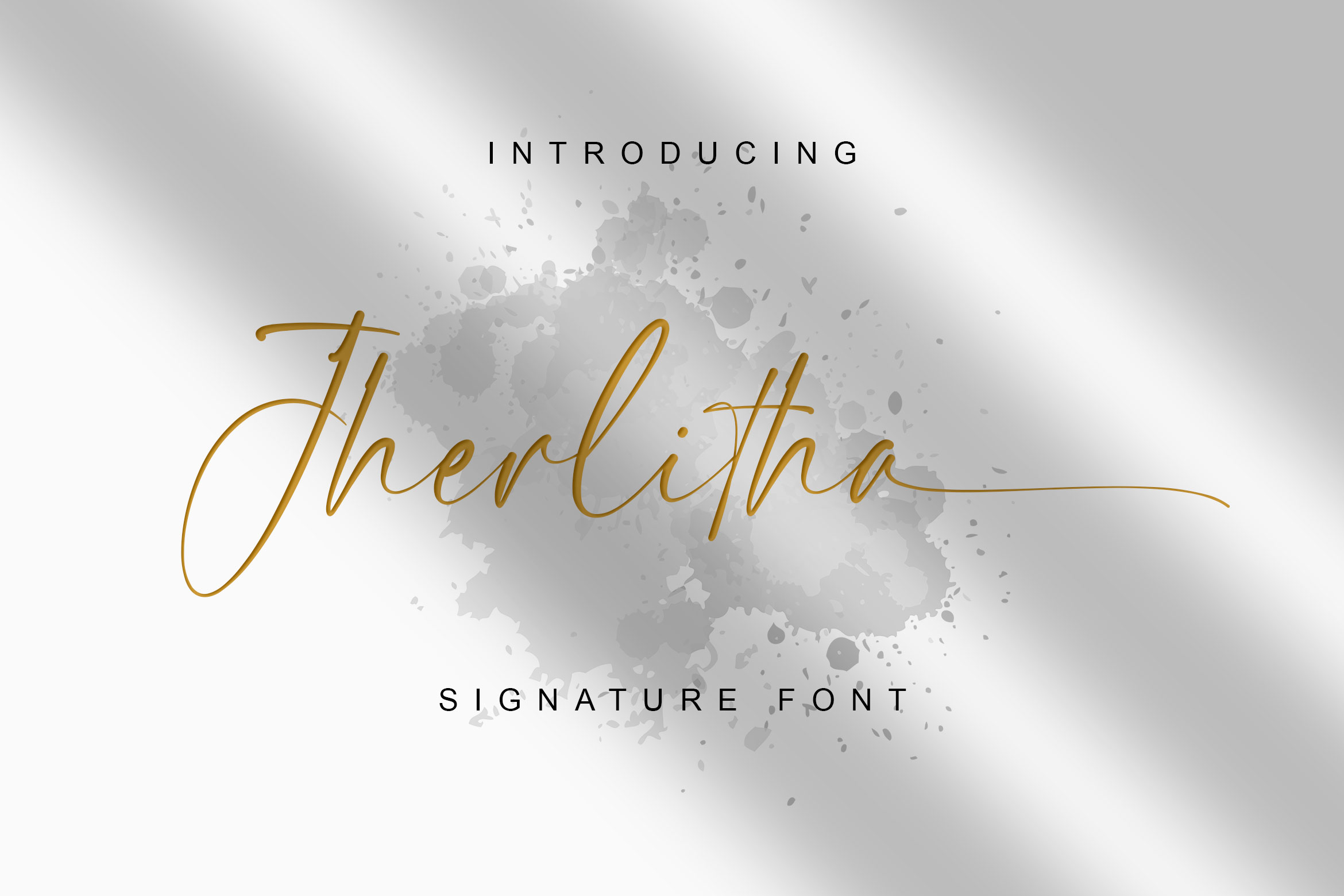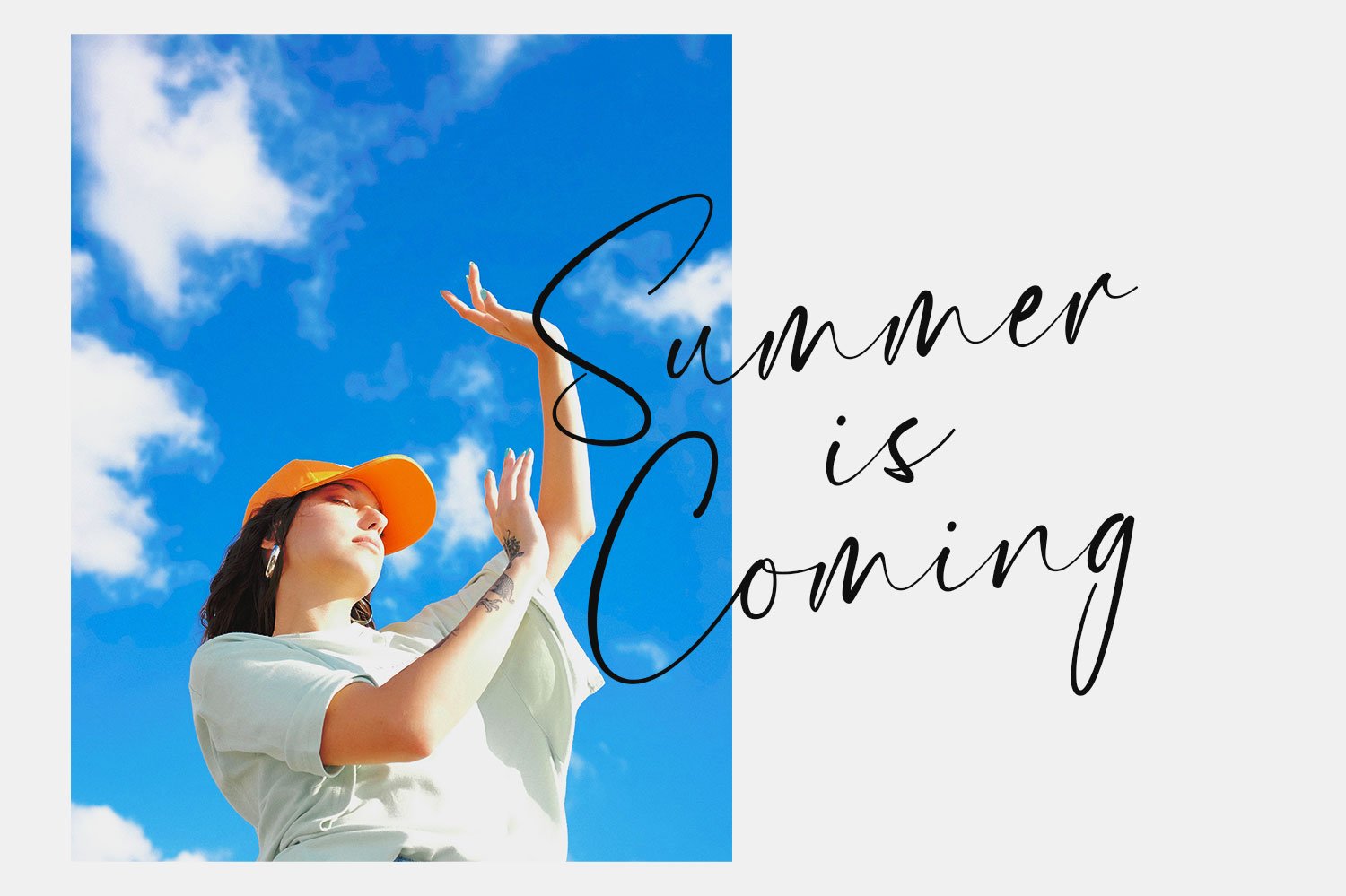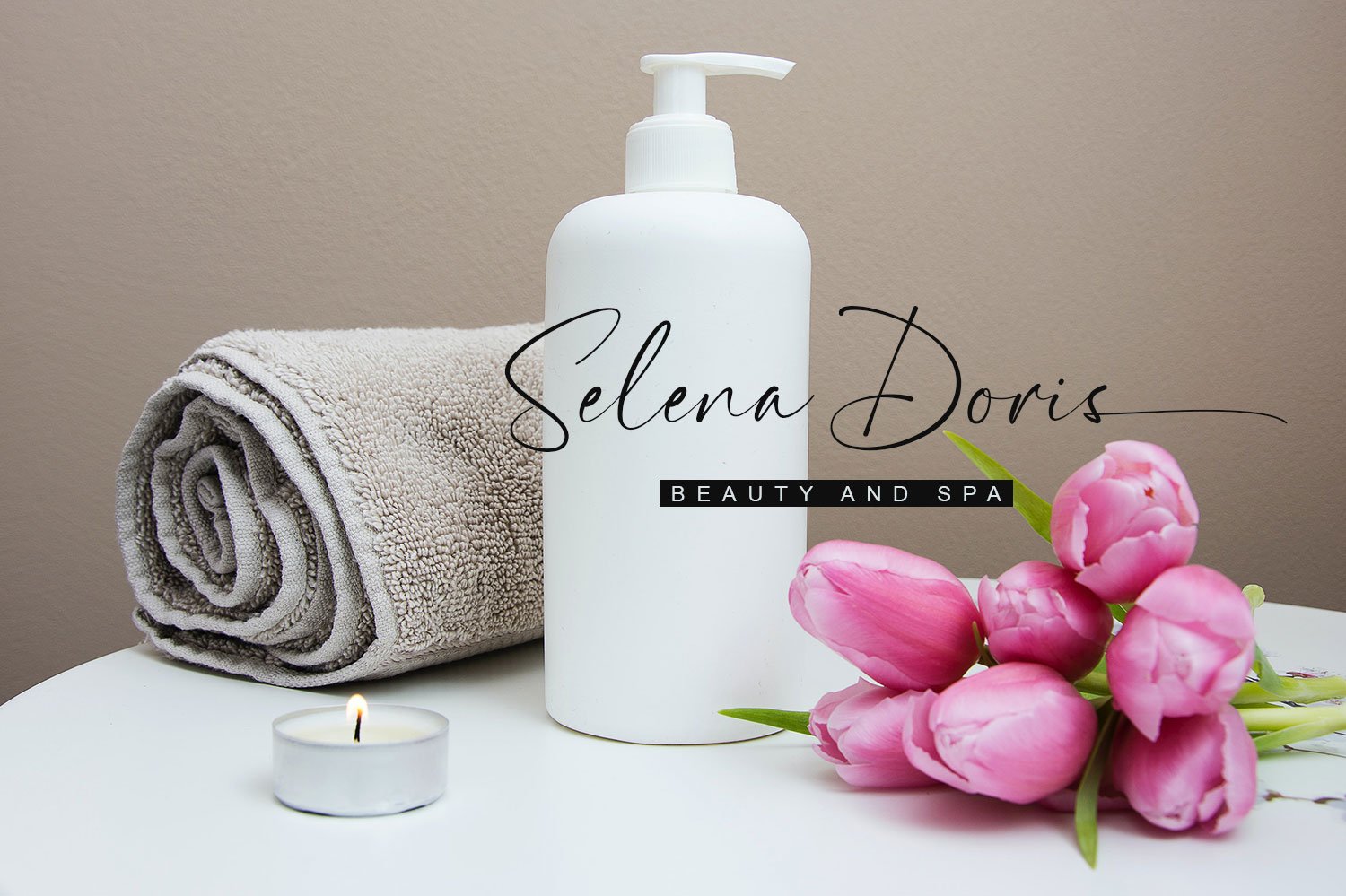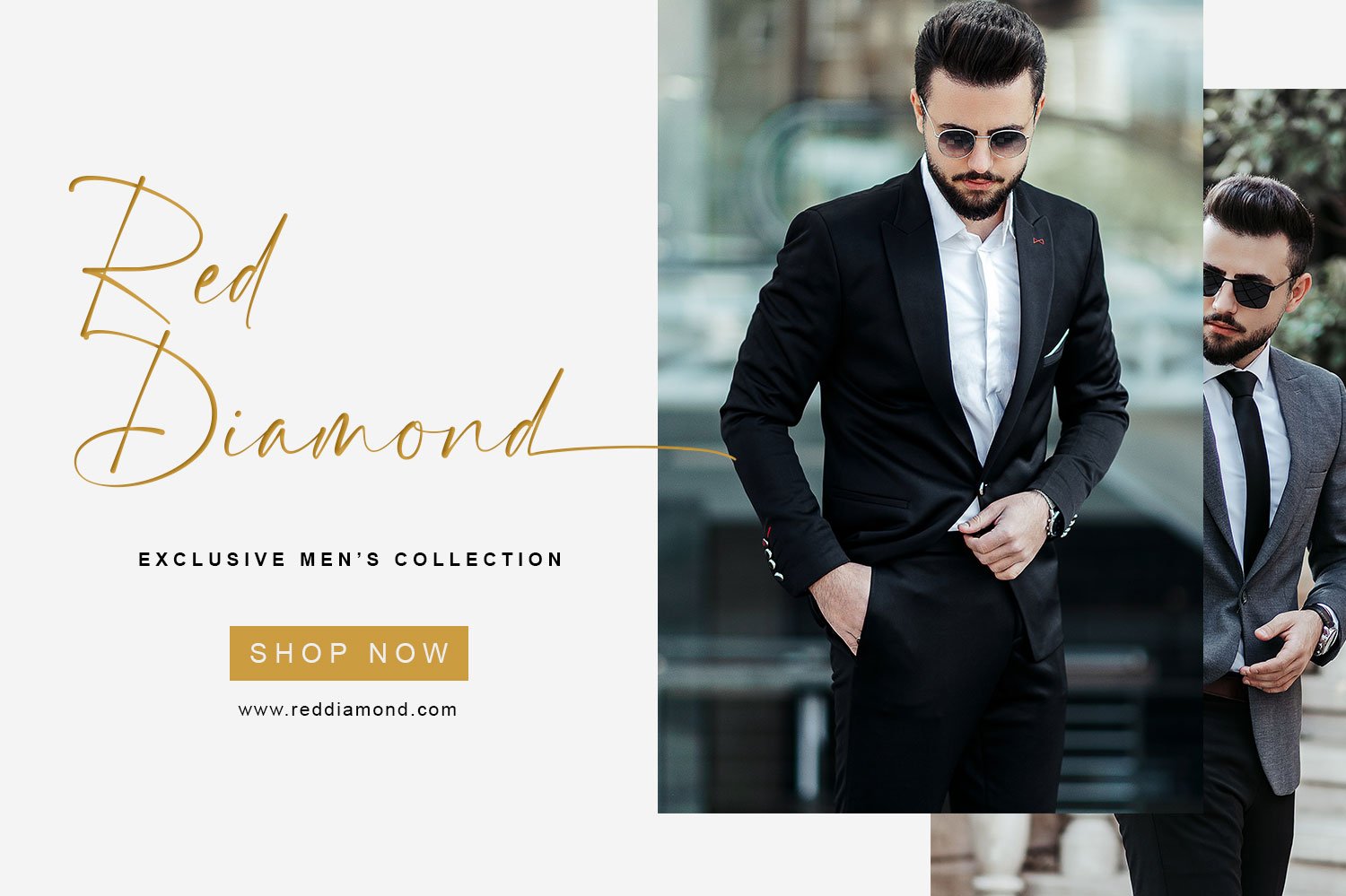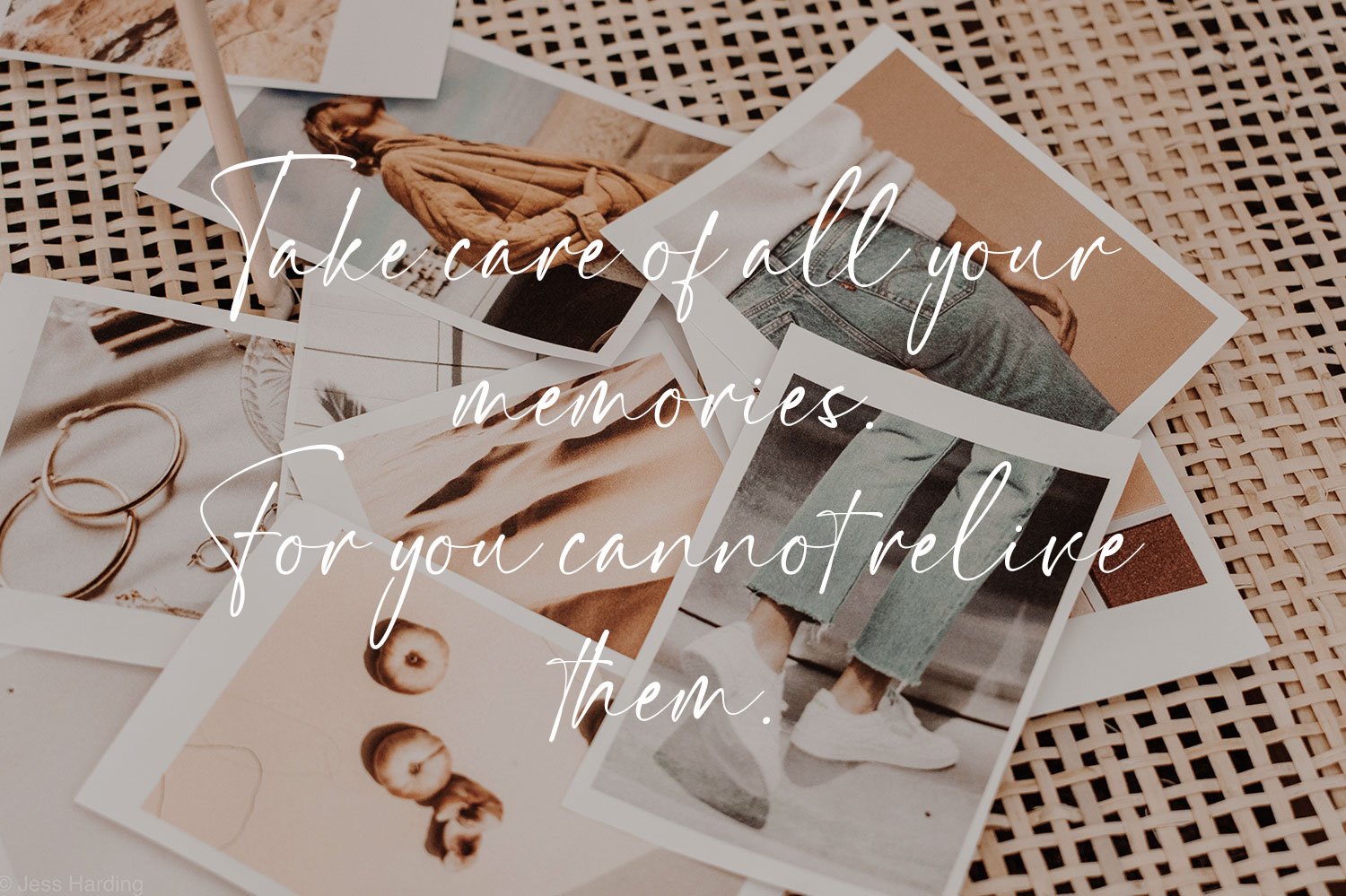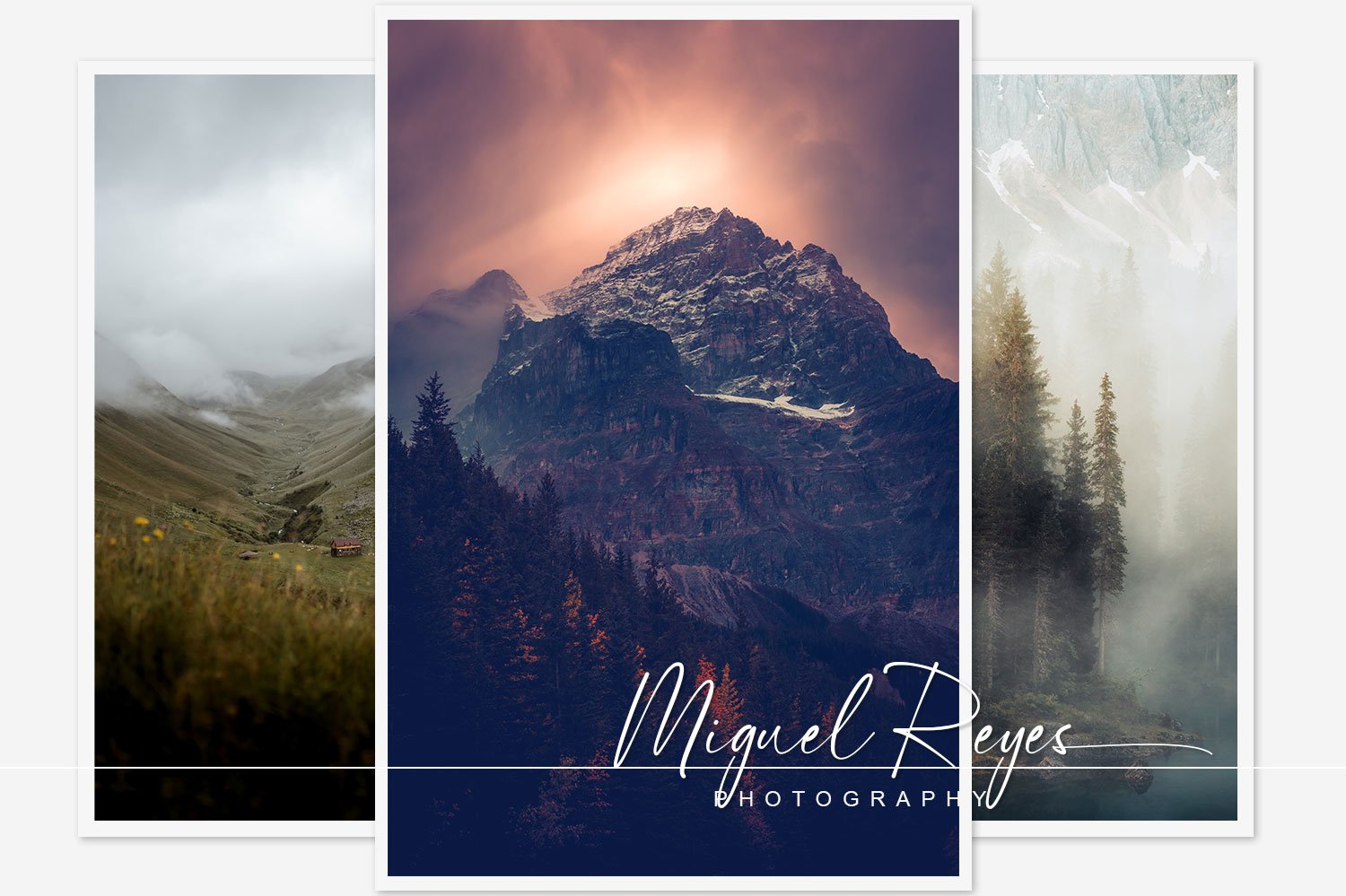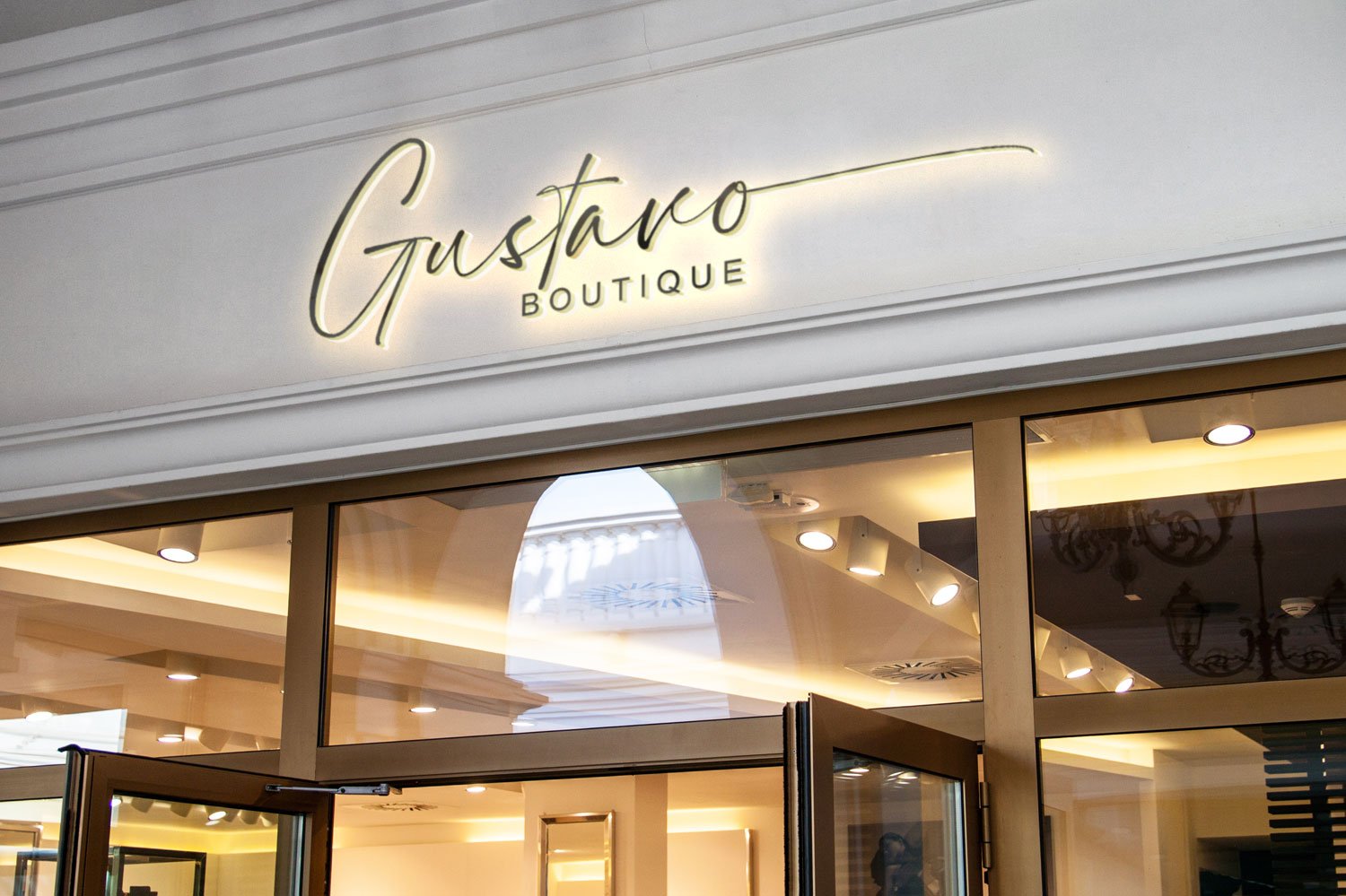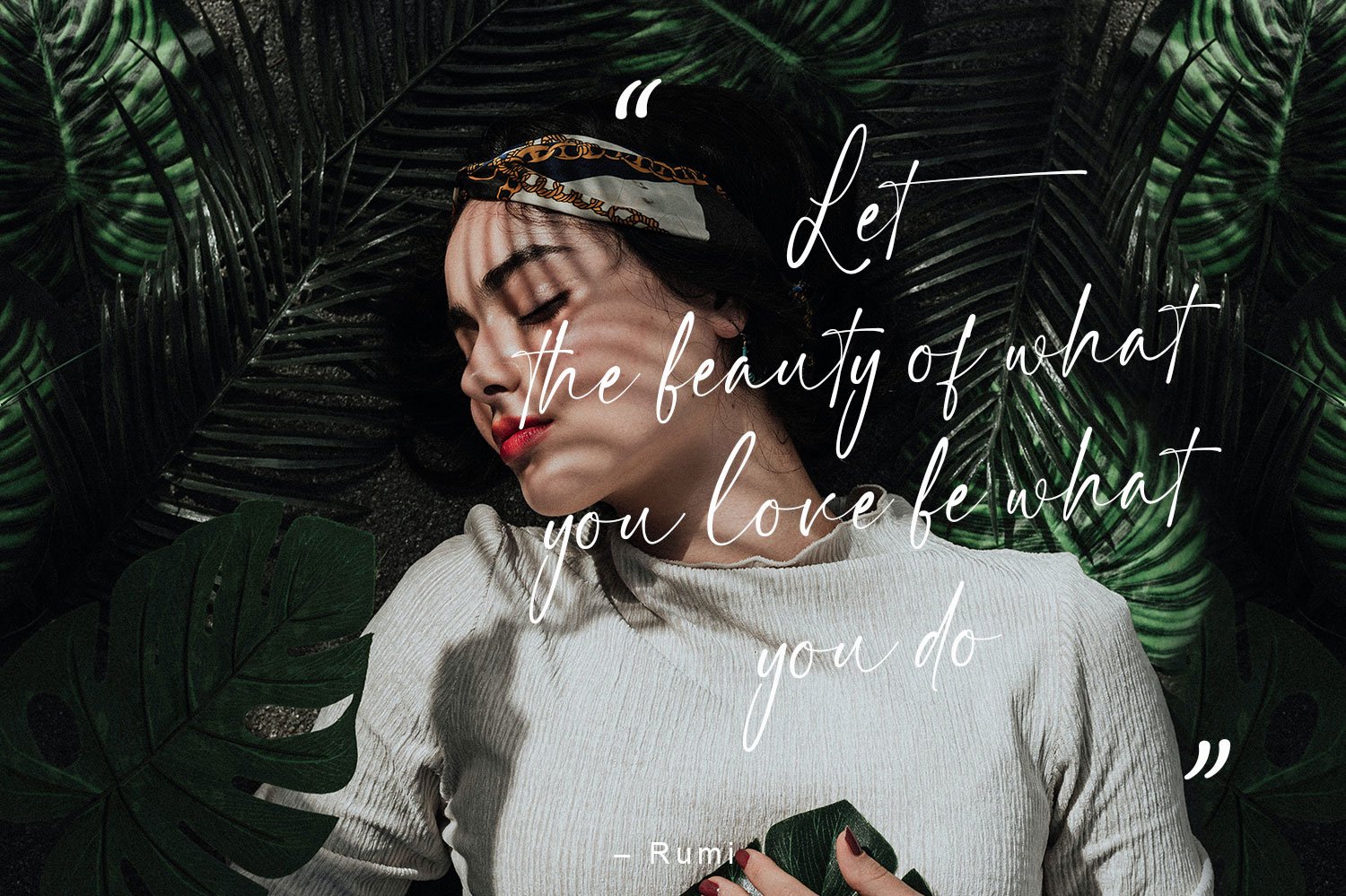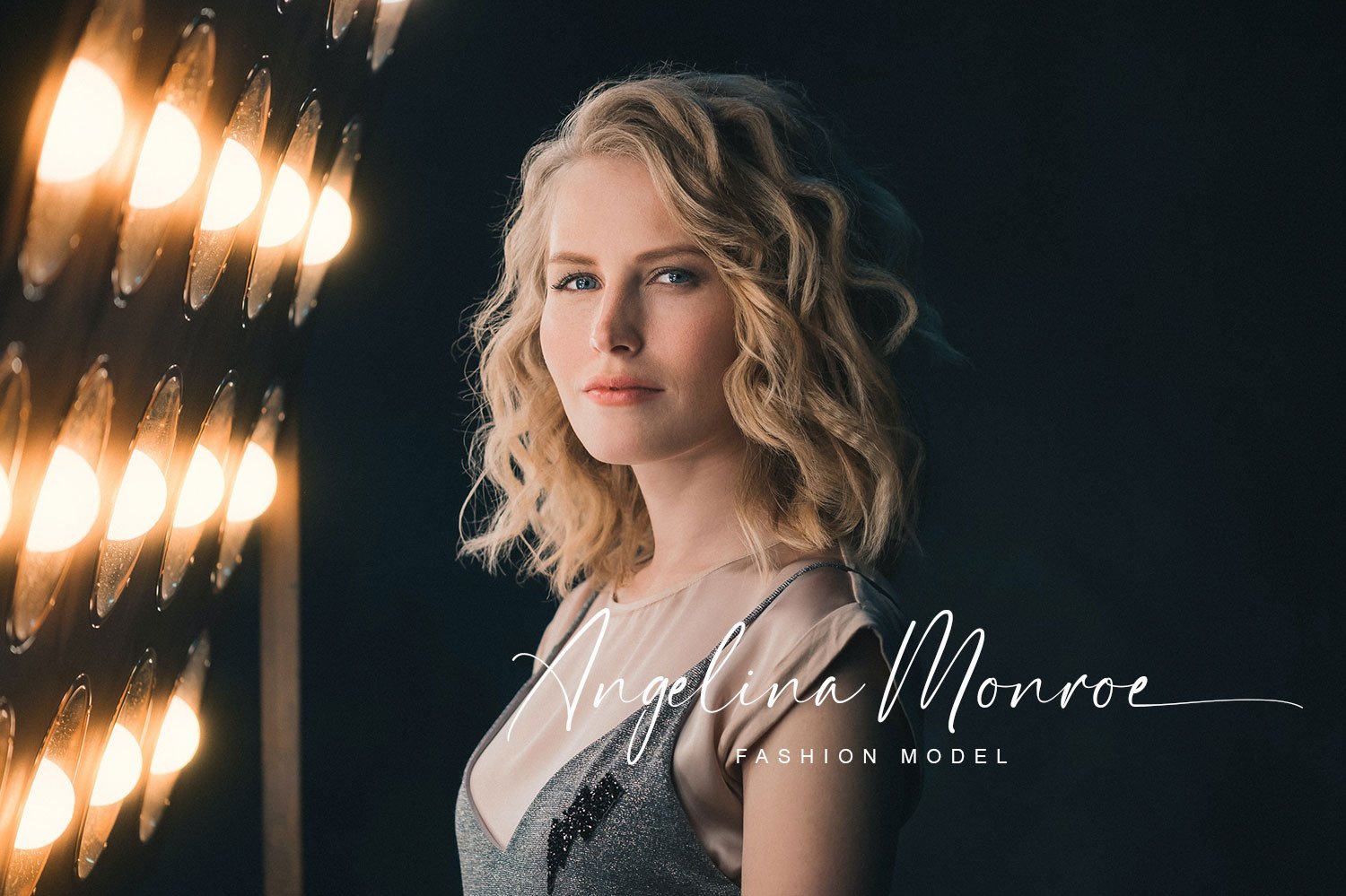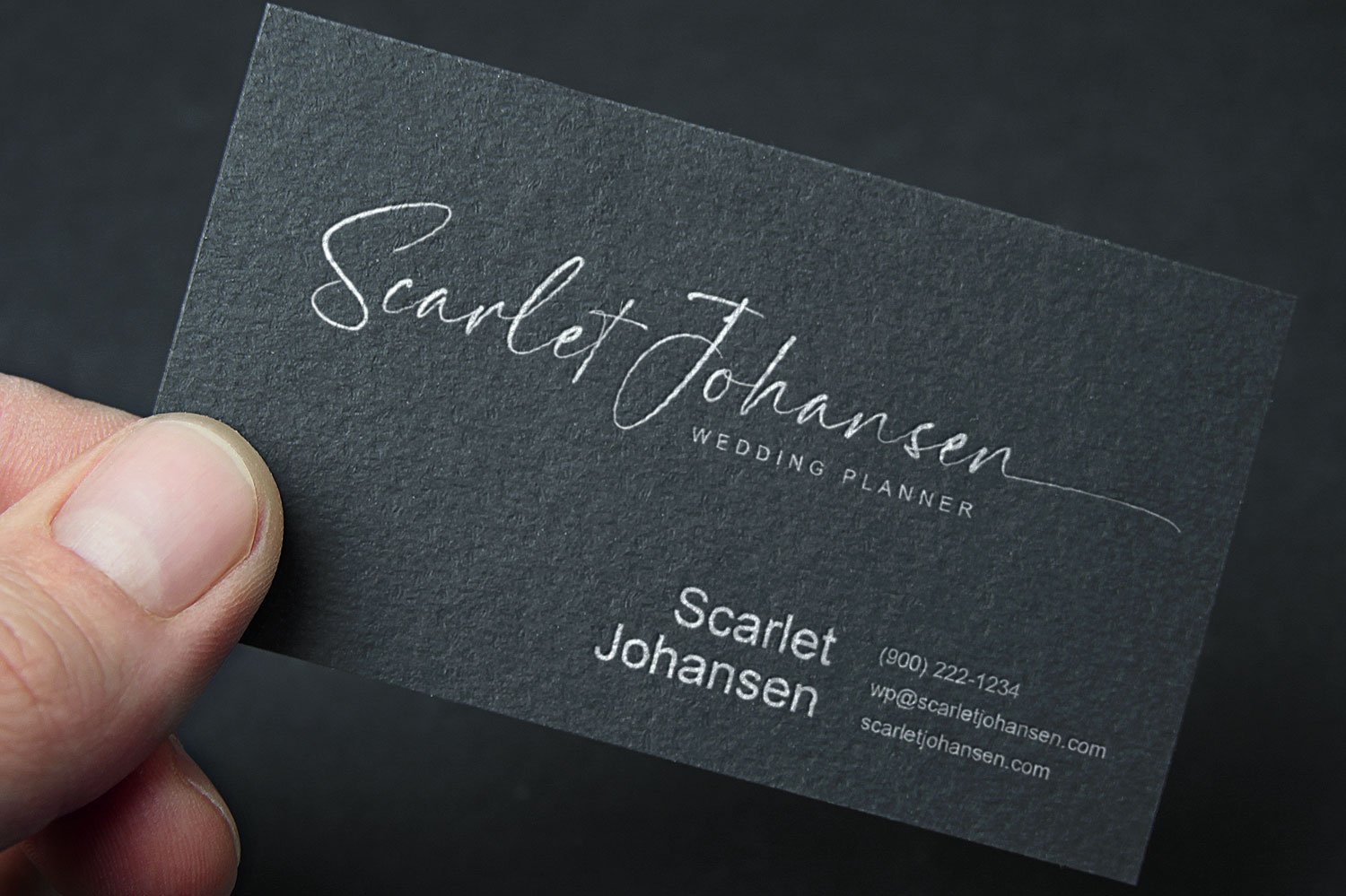
Jherlitha – Signature Font
Introducing Jherlitha – Signature Font
This Font can be used for any variety of purposes, such as: Photography, Wedding Invitation, Packaging Product, Logo Type, Brand, and also can be used for personal purpose. This Font Template contains Modern, Elegant, creative, Professional and Unique Concept.
- Uppercase & Lowercase letters
- Numbering and Punctuations
- Ligatures
- Multilingual Support